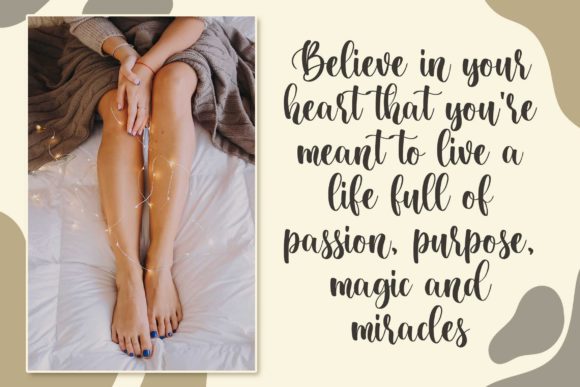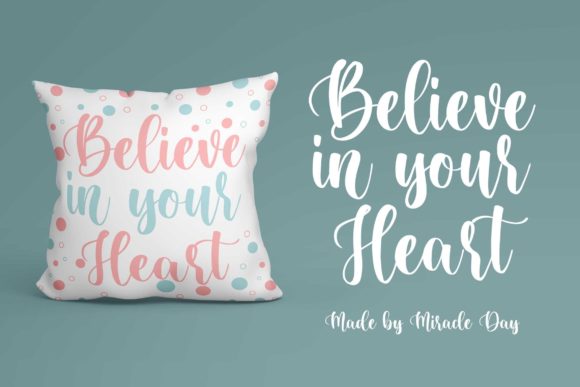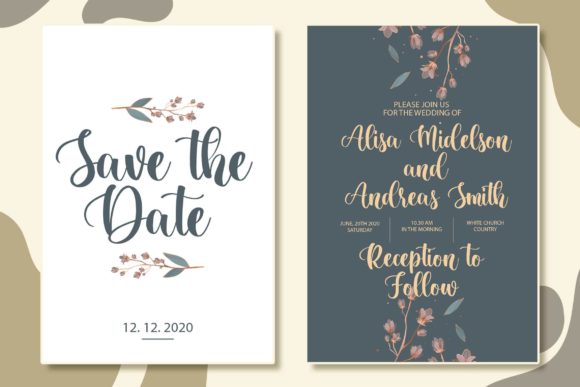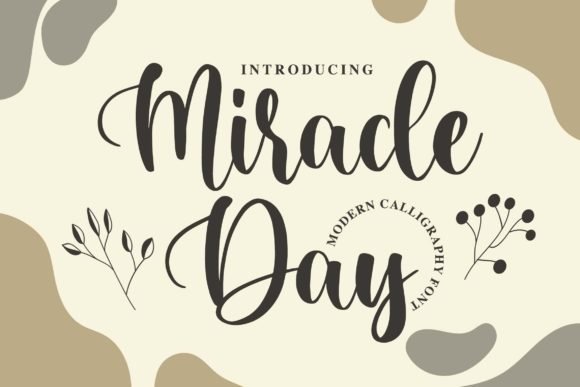
Introduction to Miracle Day Font
Miracle Day is a cute and casual handwritten font with an incredibly friendly feel.
It features gorgeous swashes and ligatures that make this script incredibly versatile Whether you’re looking for fonts for Instagram or calligraphy scripts for DIY projects, Miracle Day will turn any creative idea into a true piece of art.
Key Features of Miracle Day Font
Why Choose Miracle Day Font?
Miracle Day Font offers exceptional quality and versatility, making it a valuable addition to your design toolkit. Whether you’re creating for personal projects or commercial use, Miracle Day Font delivers professional results.